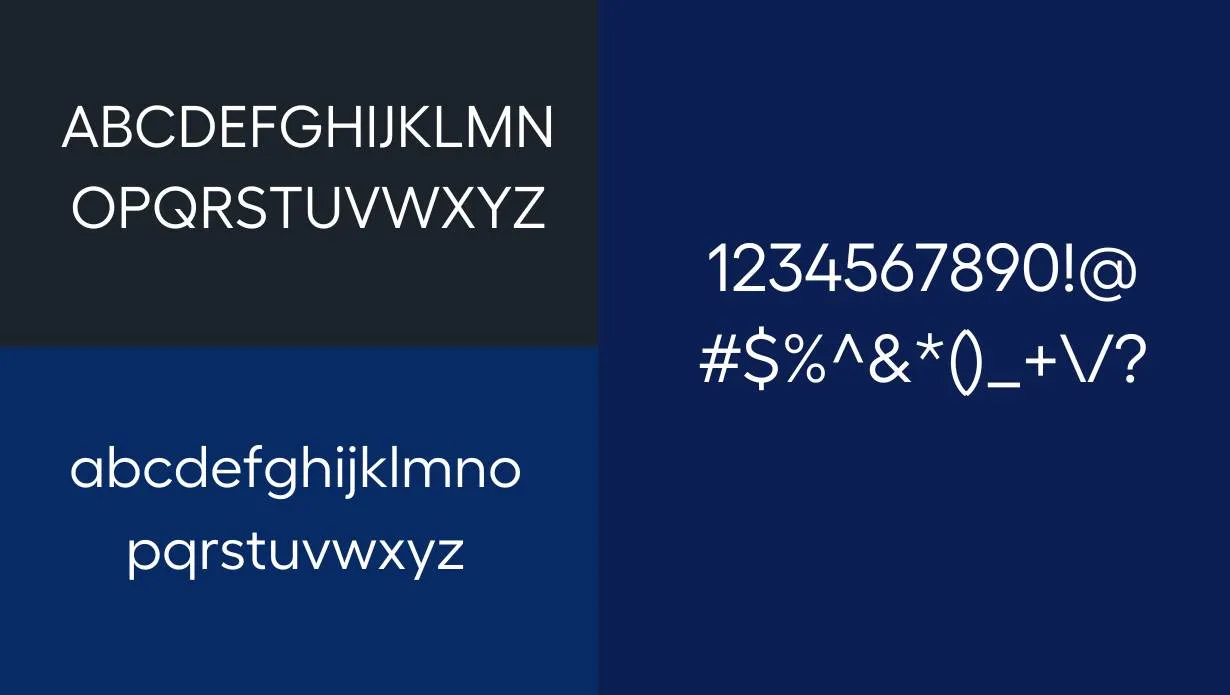
Fellix Font adds a touch of modern elegance to your designs, making them suitable for branding or promotional materials. Its stylish characters bring a refined look to your projects.